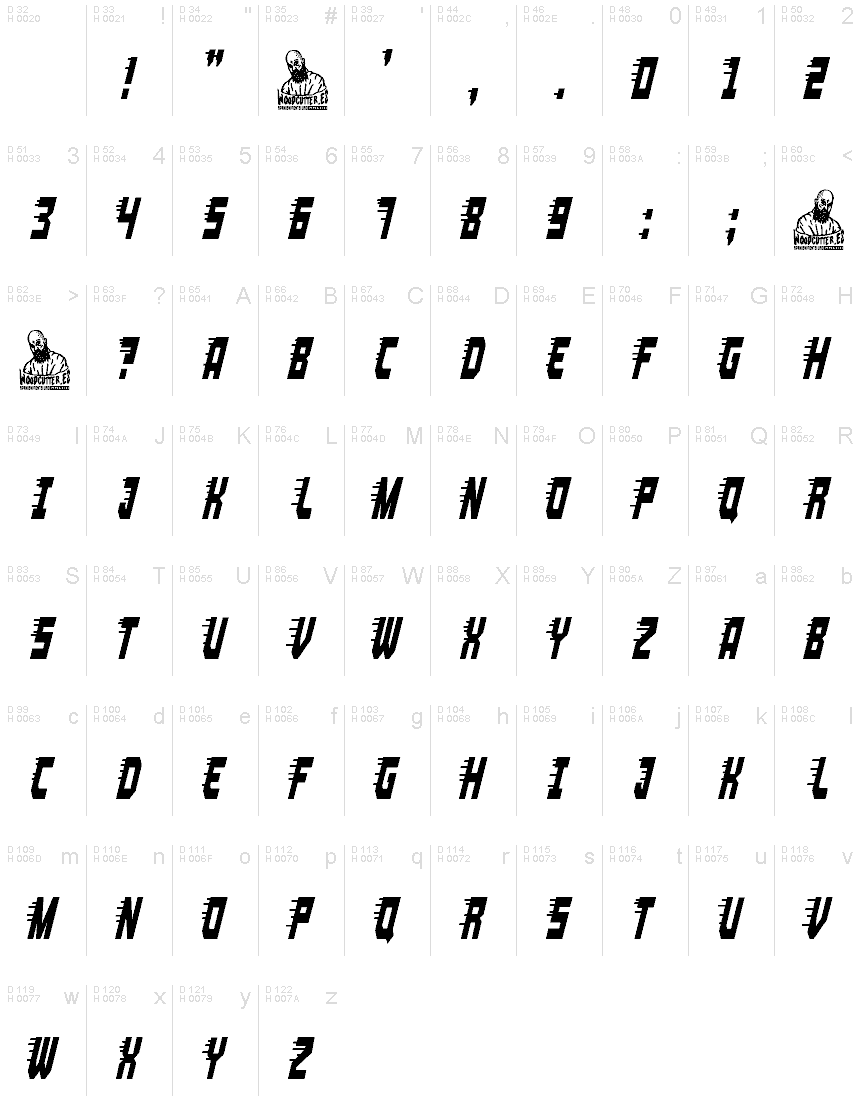
Terminal velocity
Terminal Velocity font by Woodcutter is a condensed display typeface, futuristic and striking. With bold strokes at sharp right angles and chiseled letterforms, it achieves a technical appearance that is both angular and geometric. The font can make your designs more aggressive and energetic which we believe is exactly what’s needed.
Use Terminal Velocity in video games design, advertising posters, jerseys, packaging labels for sports drinks (real or fictional), album covers, streaming show graphics, native apps UI design (like “reminders”), educational materials about physics or engineering, magazine front covers…